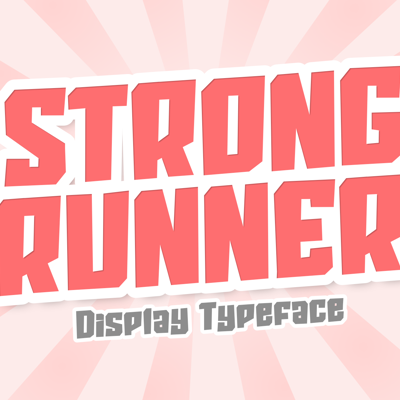
Ice Caps
9. Cold
Please Dont Leave NBP
6. Sad
Delicate Sans
2. A delicate font (sleek)
Strong Runner
1. A strong font
creative mind
3. Most creative
Summer Love
5. Summer feel
Kids Marker
4. Suitable for kids
Metropolis
10. Sharp feeling
Boring Squared
7. Boring
Stride
8. A font I'd like on a shoe